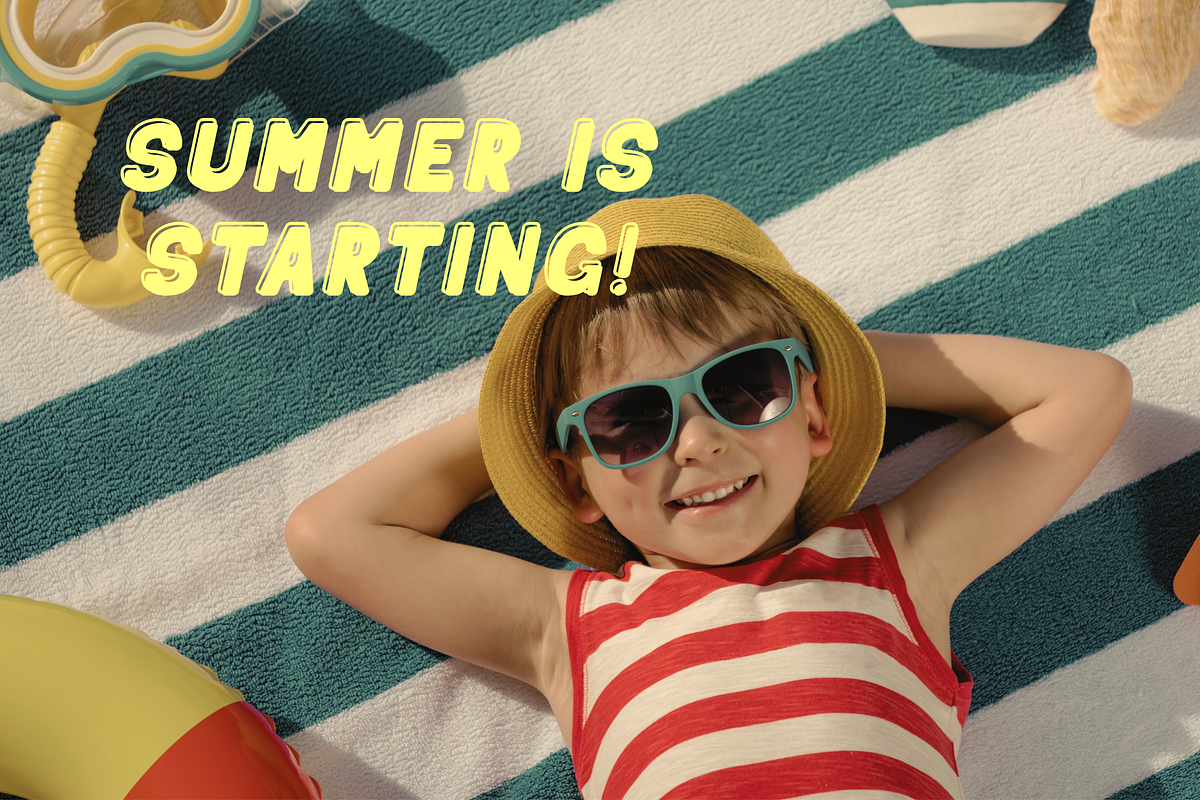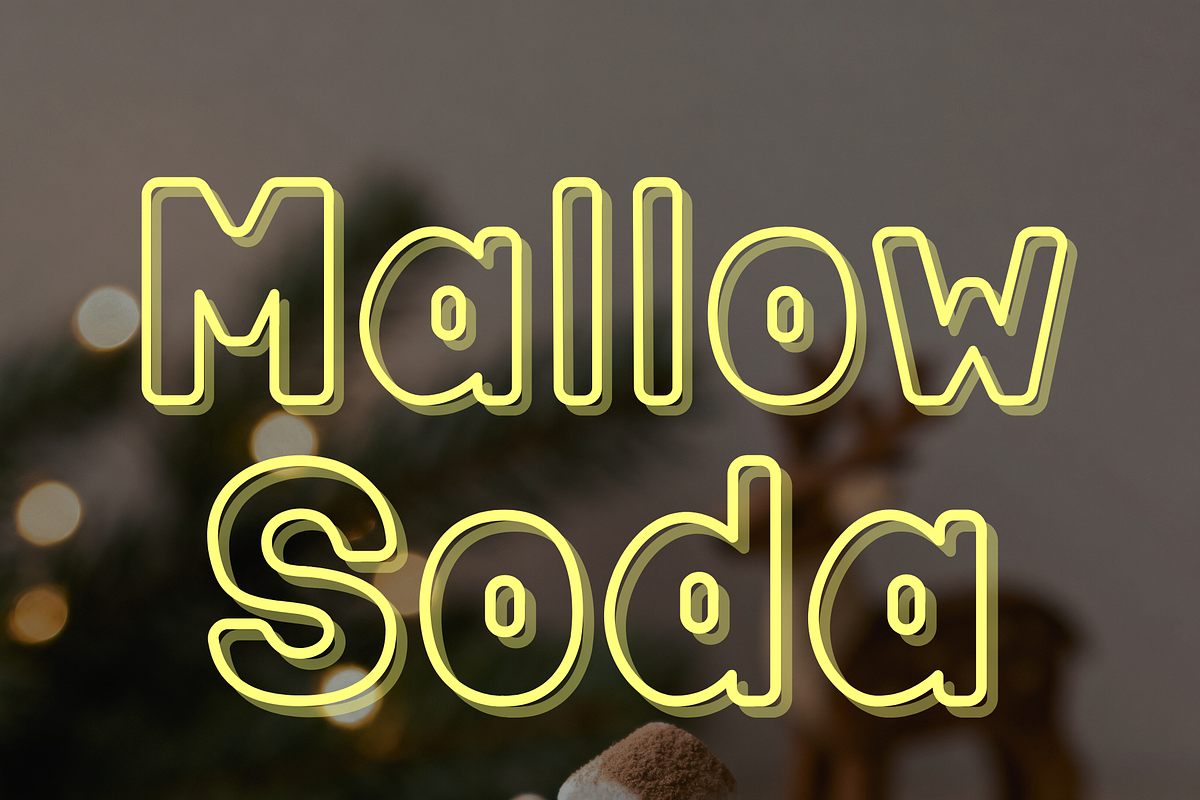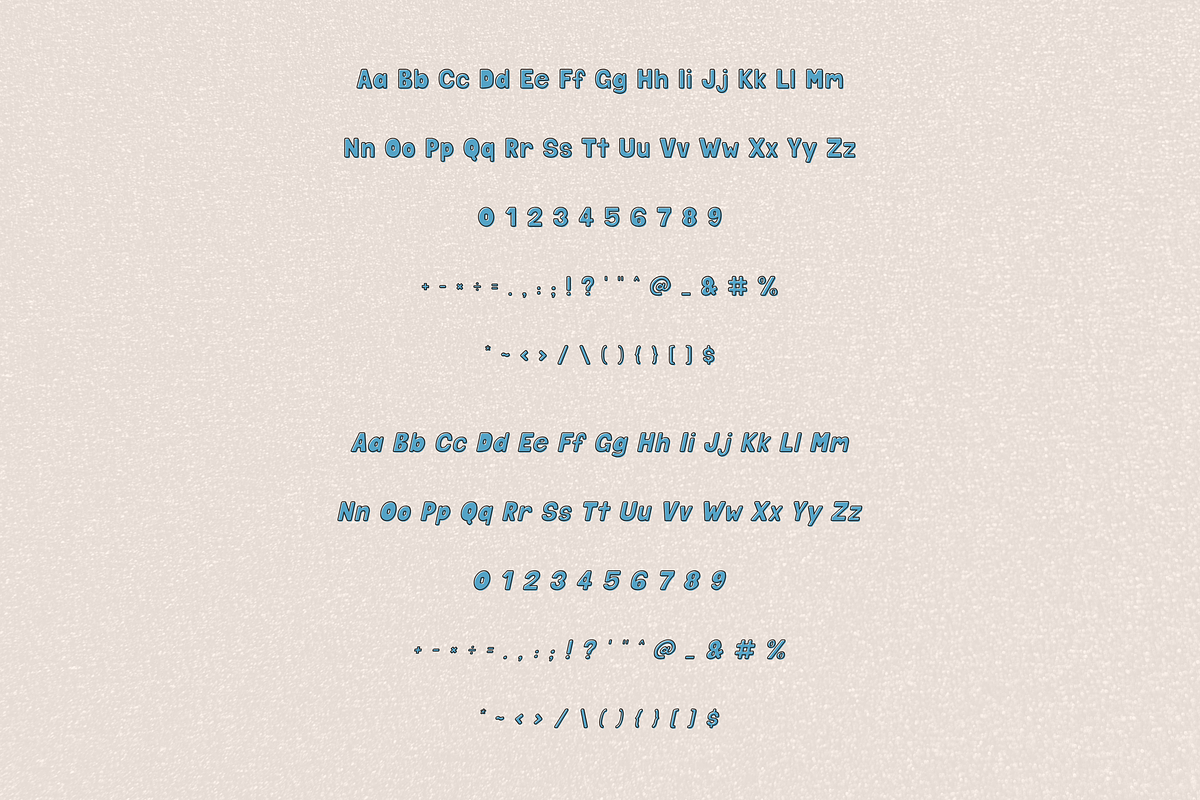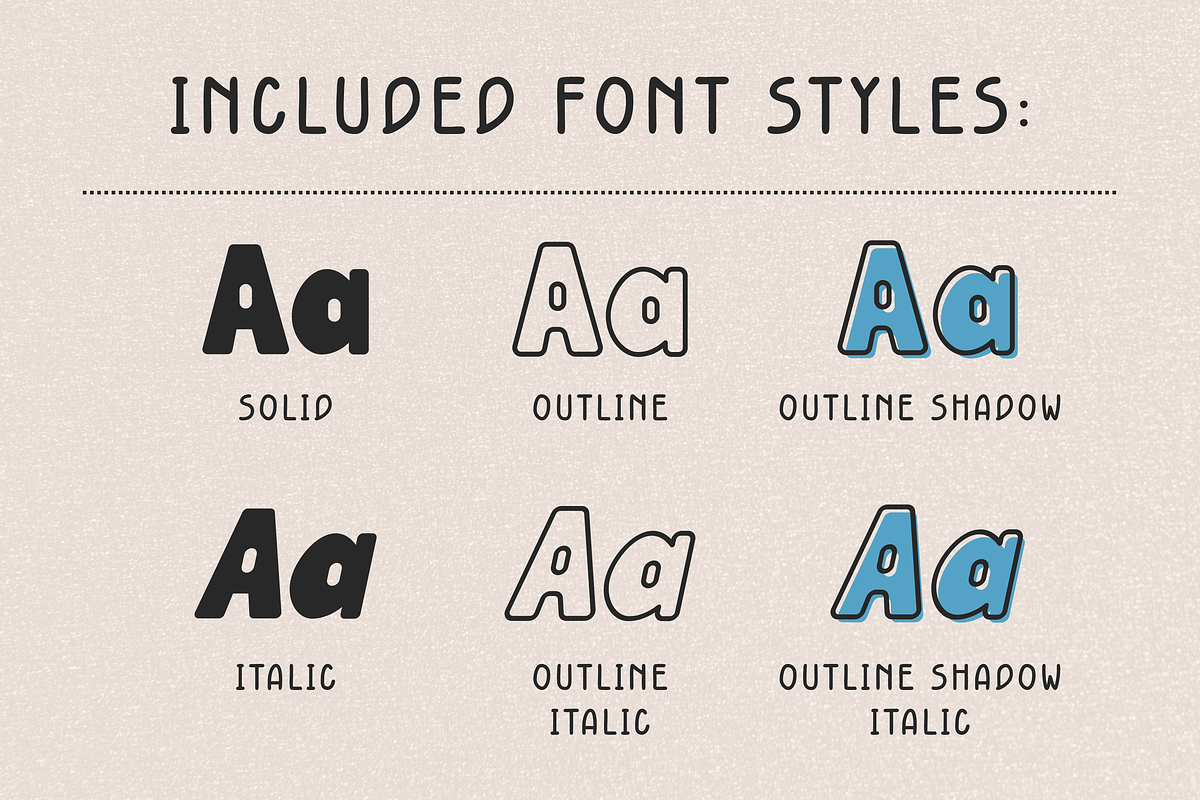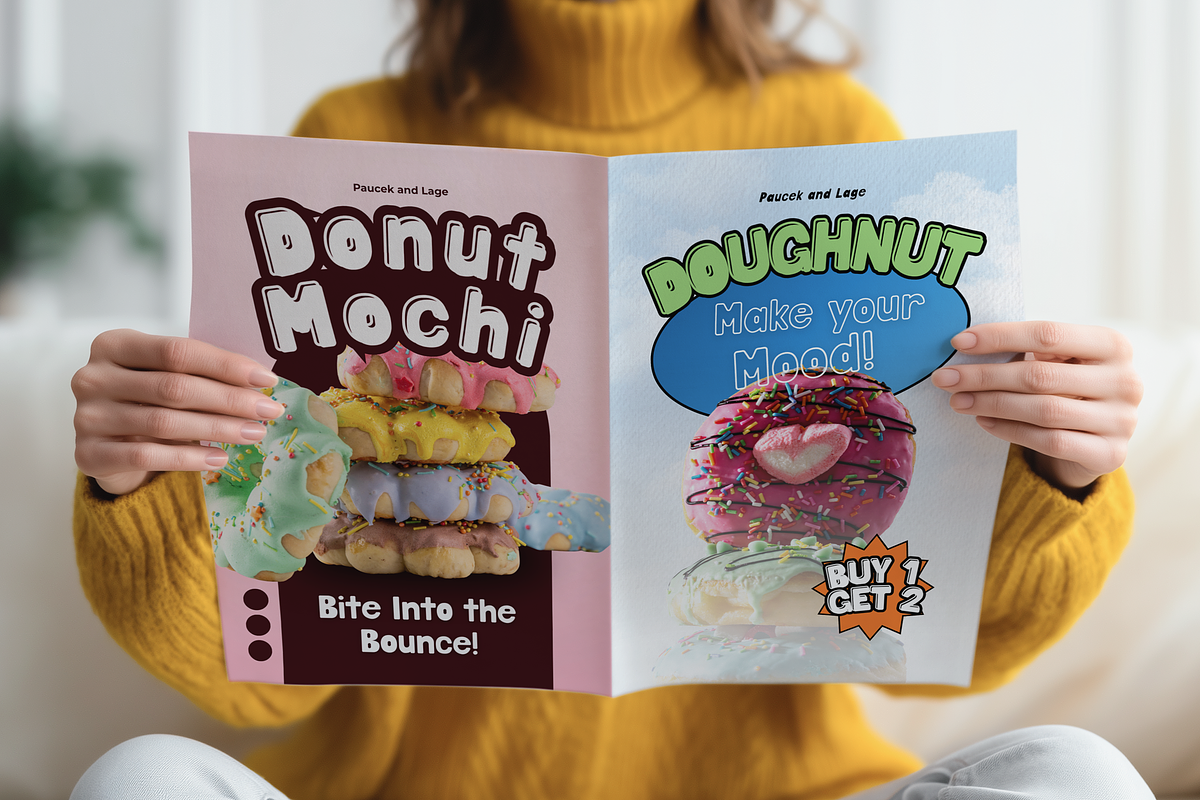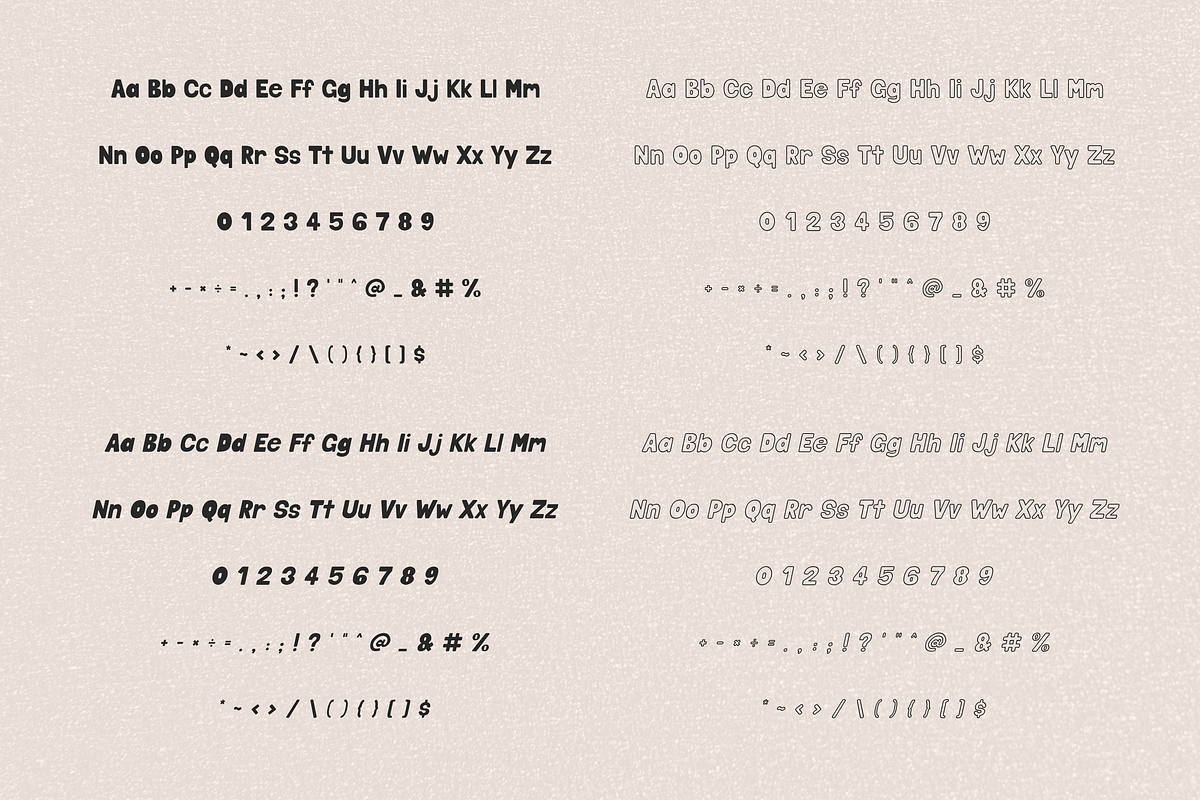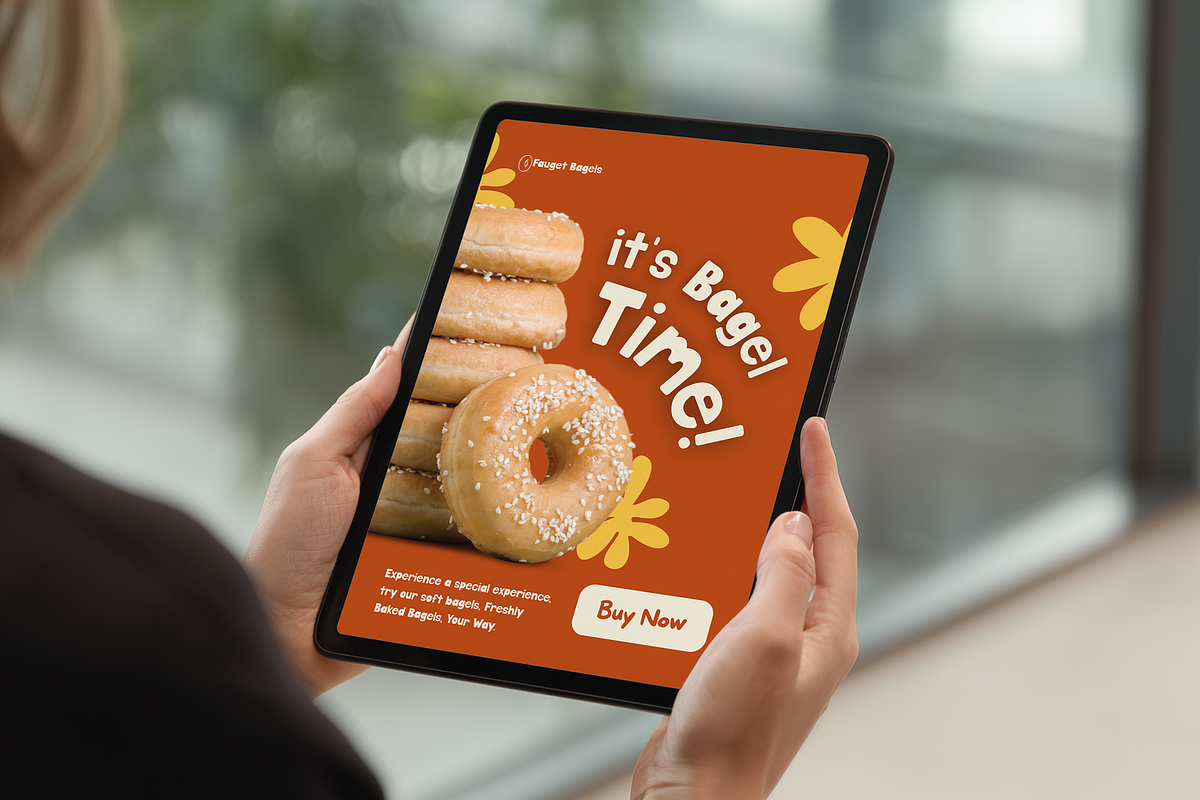
Retro rounded font - Mallow Soda
✨ Mallow Soda – A Cute Rounded Bubble Handwriting Font
Mallow Soda is a soft, playful bubble-style handwriting font designed to bring warmth and charm to your creative projects. With its rounded shapes and friendly look, this font is perfect for kids designs, craft projects, and sublimation products.
- Mallow Soda font, 6 style (solid, Italic, outline, outline italic, outline shadow, outline shadow italic) : OTF, TTF, WOFF, WOFF2, SVG